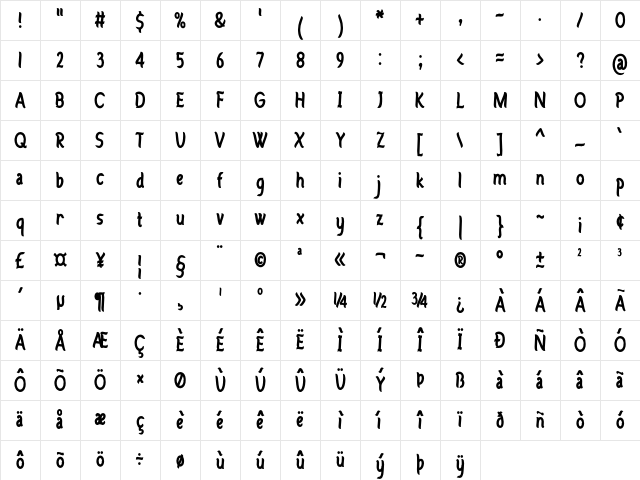
Oakvane Condensed Bold Free Font
Oakvane Condensed Bold
Style: Condensed Bold
Oakvane Family
Oakvane Condensed Bold
Design Context for Oakvane
Oakvane is a composed and adaptable typeface that performs quietly and consistently across a wide range of design contexts. Its bold stroke weight gives it real presence on the page. Its narrow stance lets it pack a punch even in space-constrained designs.